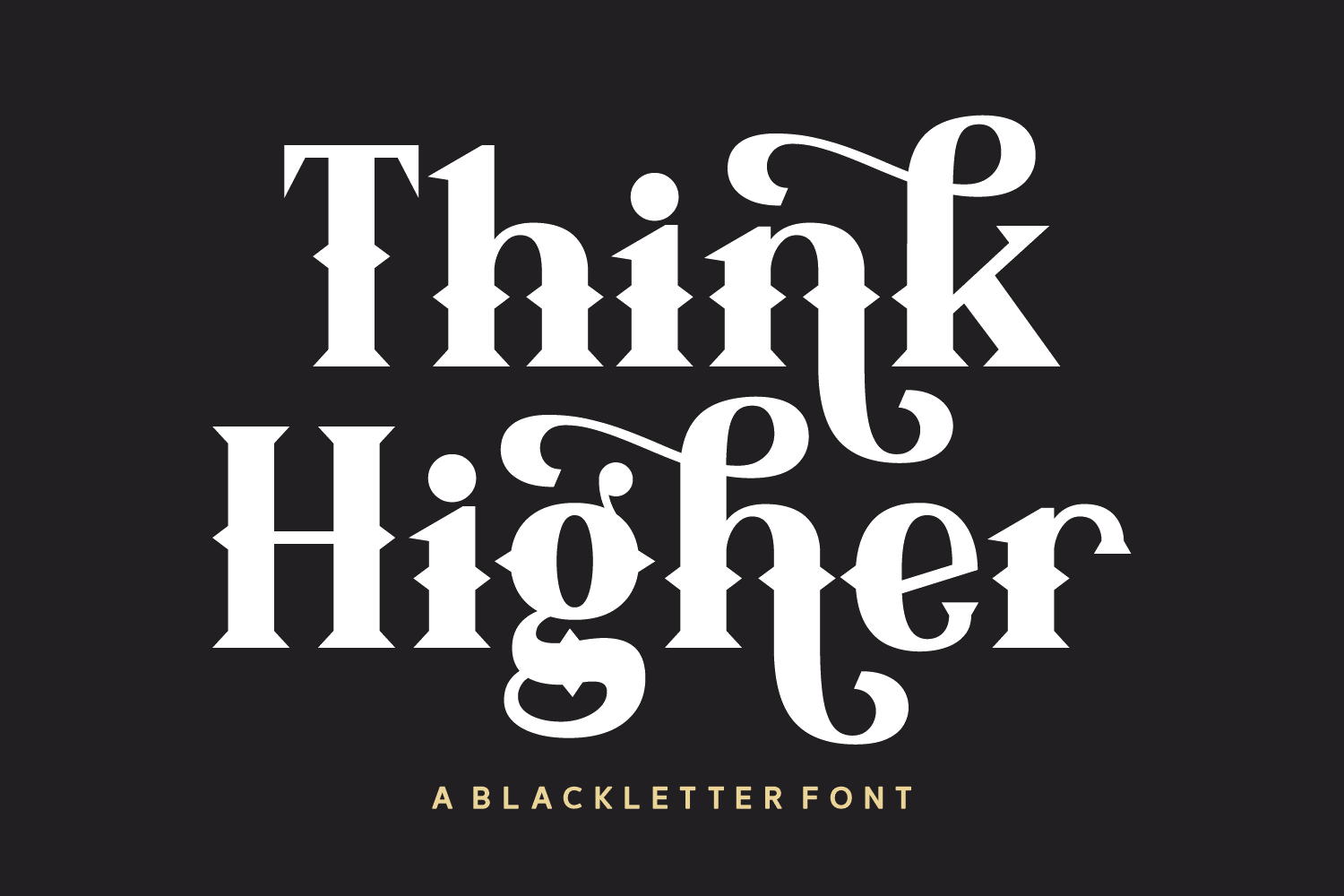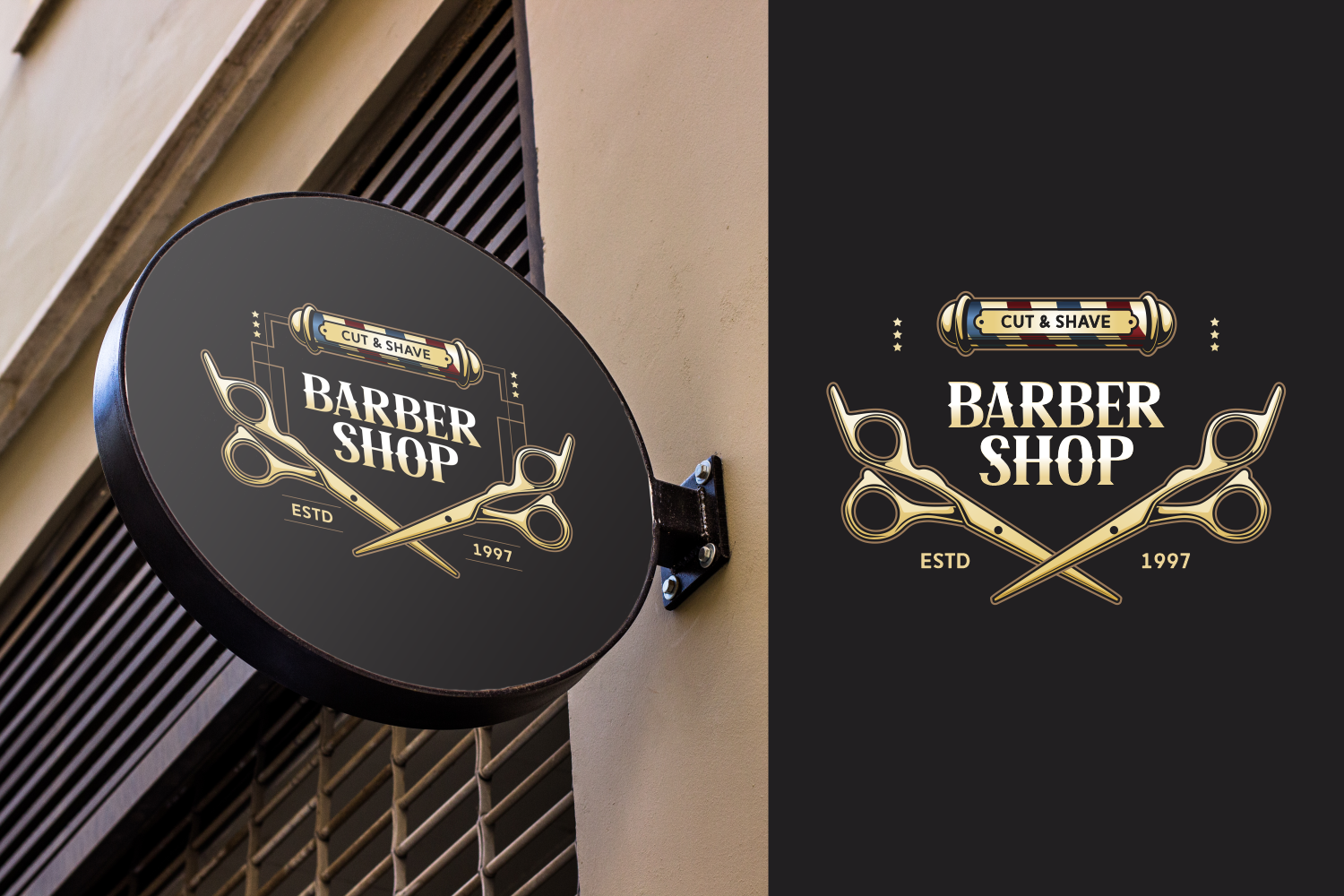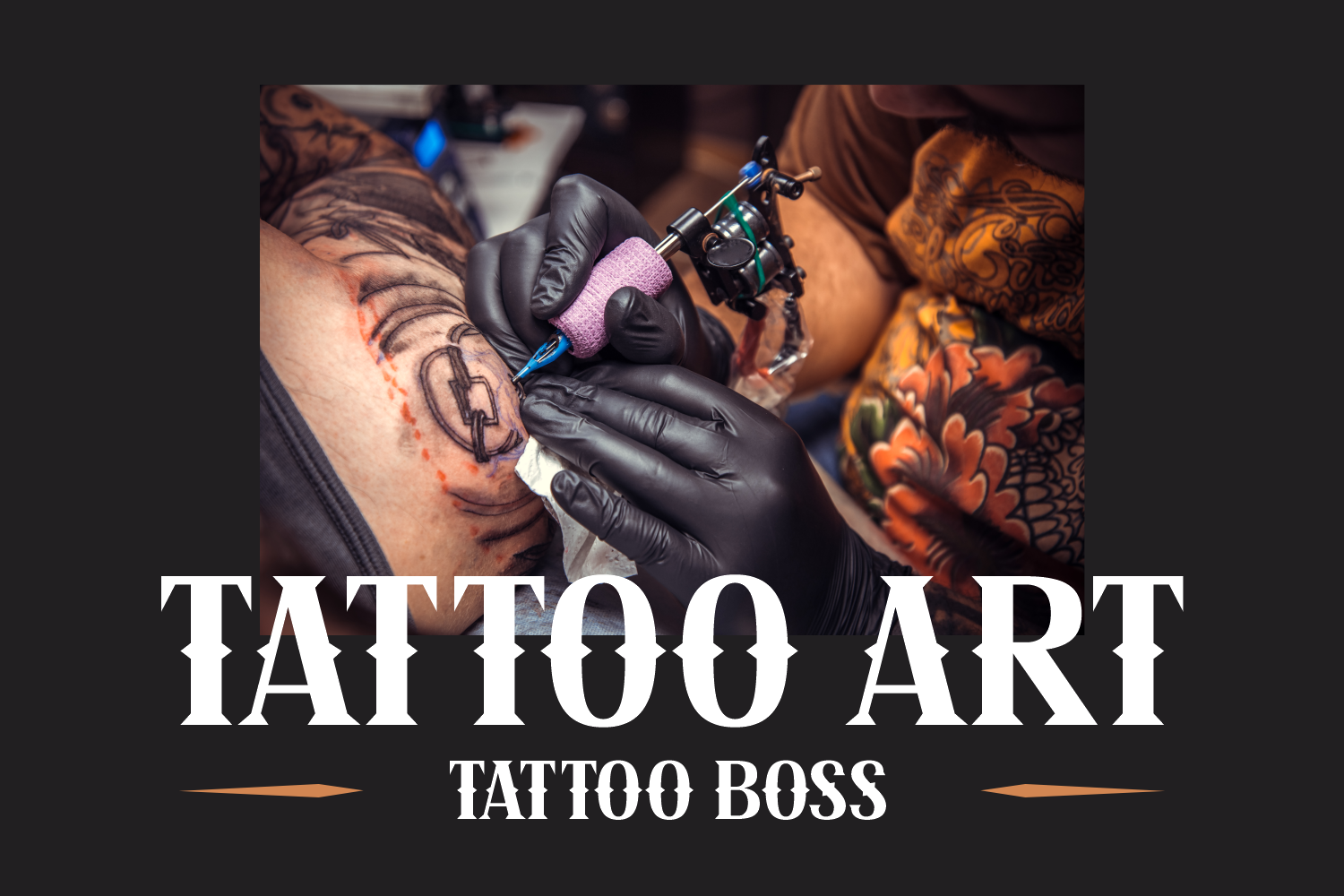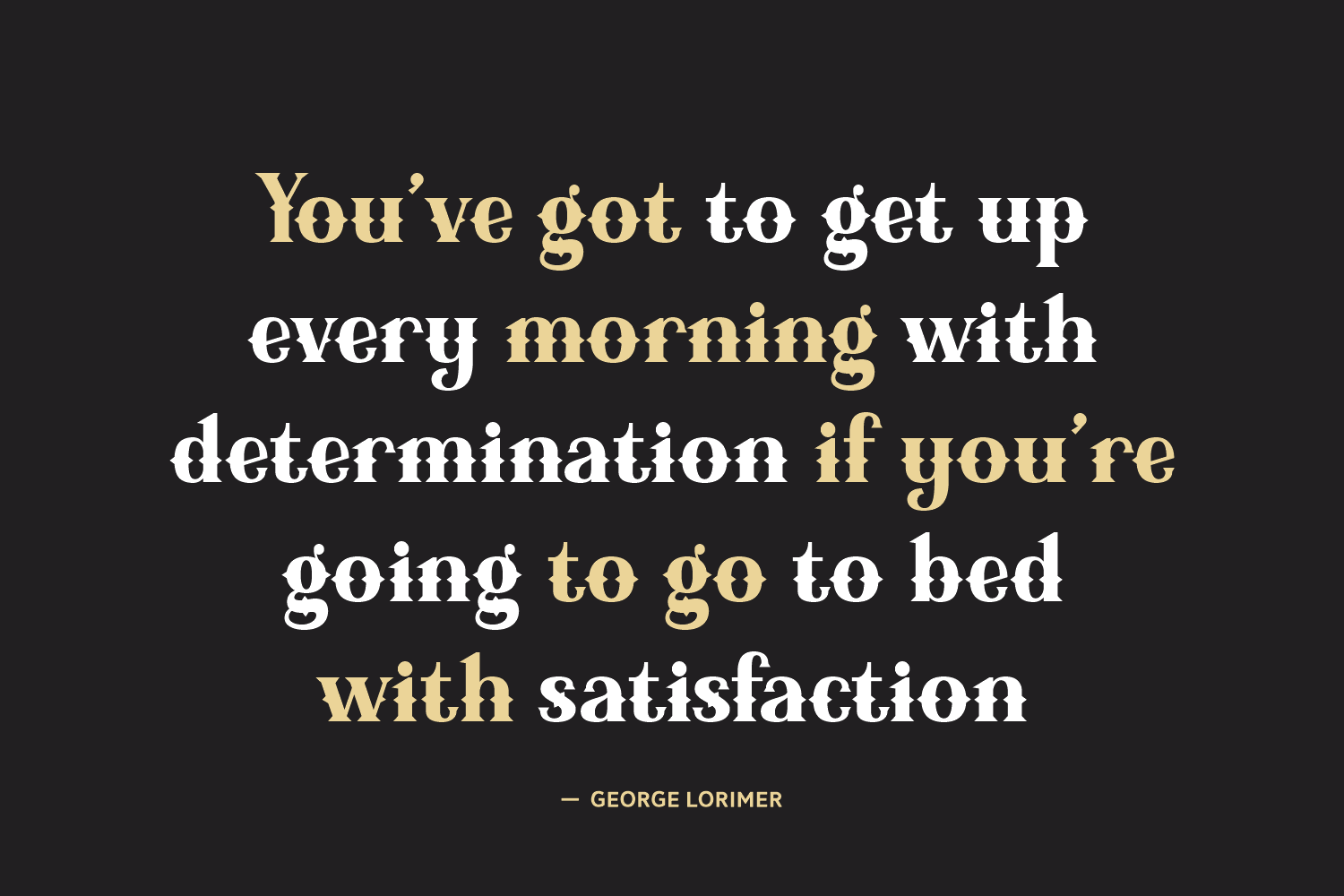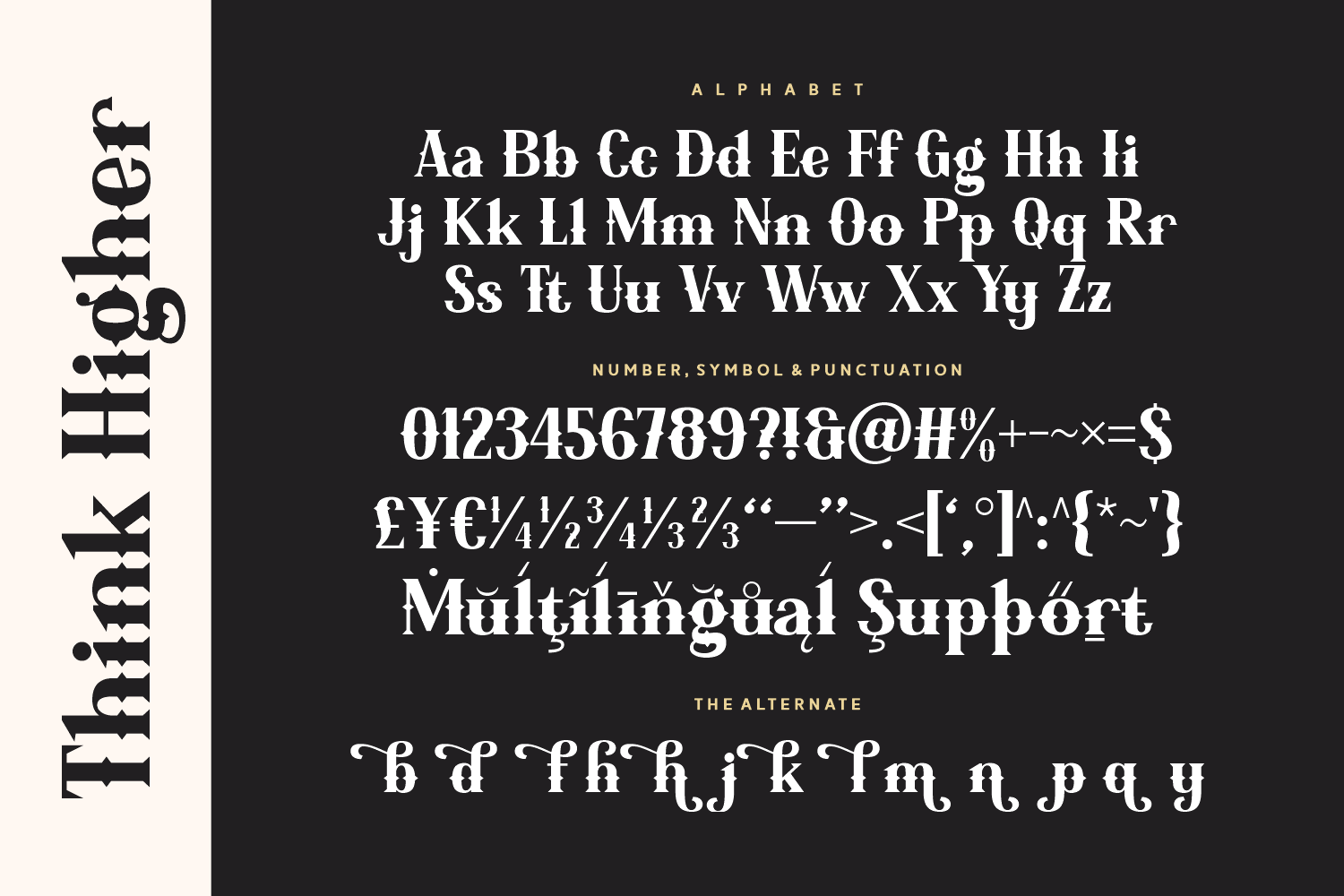
Think Higher is a modern blackletter font with elegant swashes and a refined sense of sophistication. Its mix of bold strokes and stylish curves makes it perfect for branding, motivational quotes, packaging, and anything that deserves an uplifting, dramatic flair.
With a fresh take on a traditional style, this font brings heritage and aspiration together. Turn your message into a masterpiece of ambition and beauty.